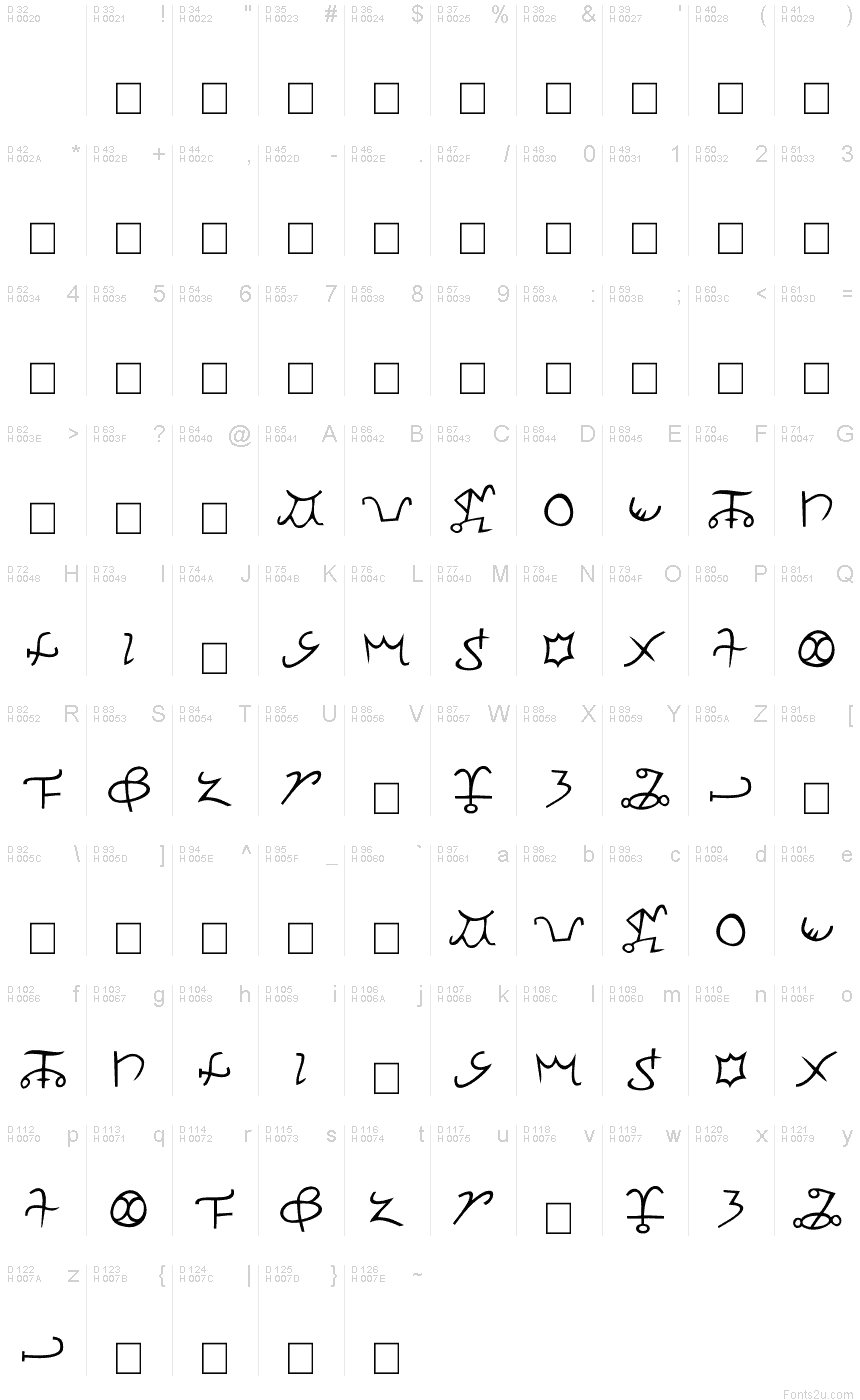
Apollonian
Daniel U. Thibault
A late-medieval secret alphabet which has been recorded in a number of versions, usually with a Greek mapping (e.g. Blaise de Vignère's «Traité des chiffres», 1586). Though traditionally identified as the script of Apollonius of Tyana, there is no evidence to substantiate this claim.
Apollonius of Tyana was the most famous philosopher of the Greco-Roman world of the first century A.D. He devoted the major part of his long life to the purification of the many cults of the Roman Empire and to the instruction of the ministers and priests of its religions. A well-travelled contemporary of Jesus Christ, many "wonders" and "miracles" were consigned by his biographer, Flavius Philostratus (who wrote his Life of Apollonius circa 220 A.D.), fodder for the long-running theological debate on the nature of miracles.
The glyphs are taken from the «Dictionary of Occult, Hermetic and Alchemical Sigils»
by Fred Gettings (1981). This font supplies a Greek mapping in addition to a Latin one (with Chi mapped to C, Eta to H, Theta to Q, Upsilon to U, Omega to W, Psi to Y). There is no J nor V.